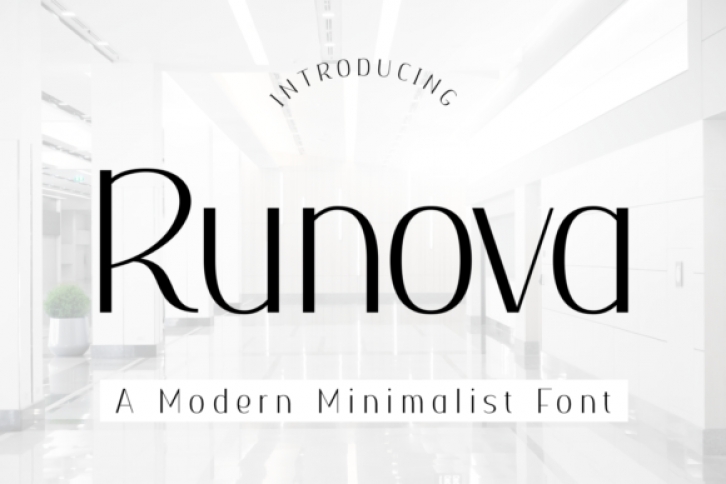
Runova is a thin, cool and minimalist handwritten font. No matter the topic, this font will be an incredibly asset to your fonts’ library, as it has the potential to elevate any creation.